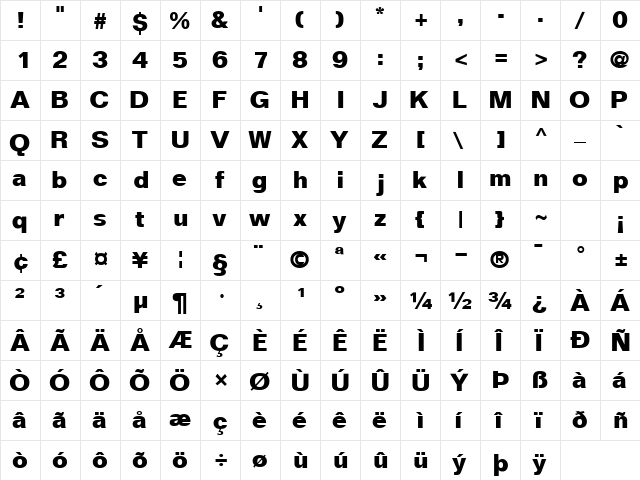
LayoutSSK Bold
Design Context for LayoutSSK Typeface
LayoutSSK is a composed and adaptable typeface that performs quietly and consistently across a wide range of design contexts. The heavy weight commands attention and anchors typographic hierarchies.